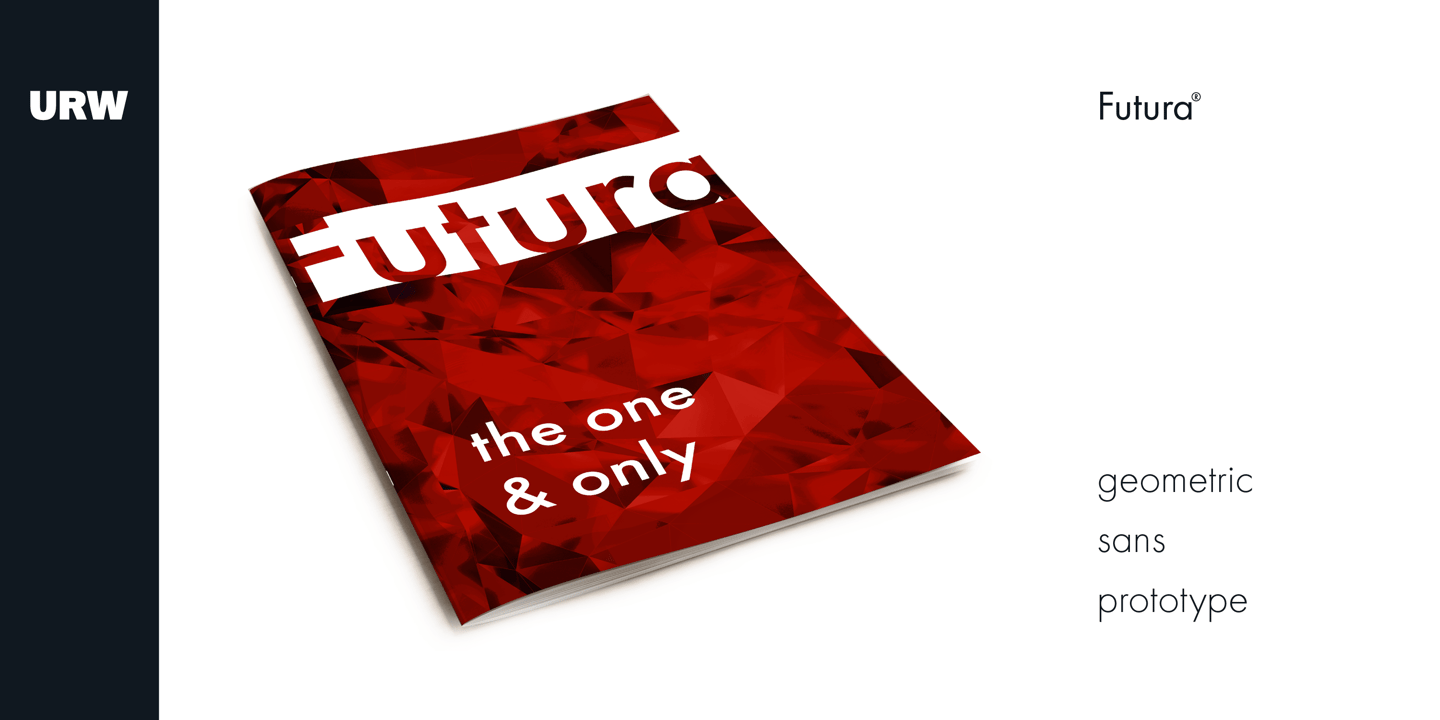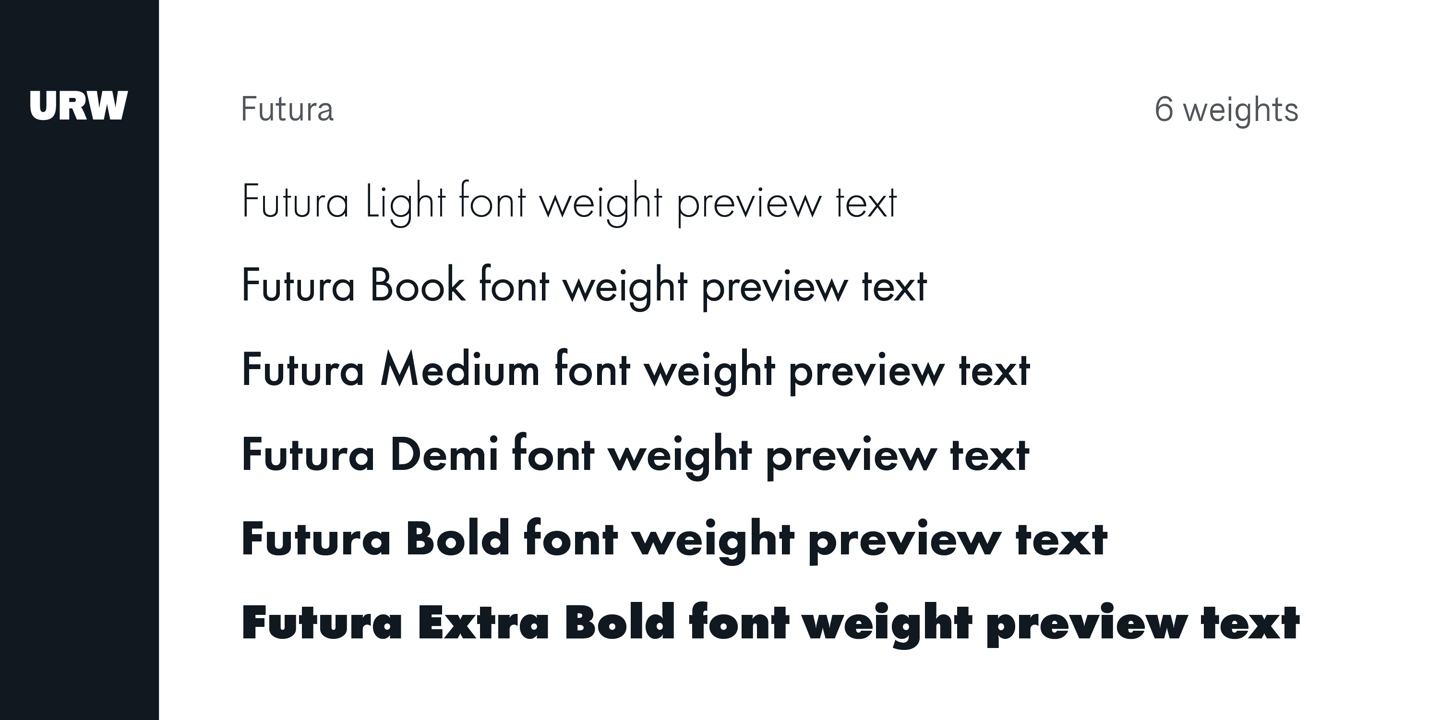
Futura Font Brands
Futura Font Brands - Designed in 1927 by german type designer paul renner, futura is a geometric sans serif based on geometric shapes that became representative. 59 rows designed in 1927 by german type designer paul renner, futura is a geometric sans serif based on geometric shapes that became.
Designed in 1927 by german type designer paul renner, futura is a geometric sans serif based on geometric shapes that became representative. 59 rows designed in 1927 by german type designer paul renner, futura is a geometric sans serif based on geometric shapes that became.
59 rows designed in 1927 by german type designer paul renner, futura is a geometric sans serif based on geometric shapes that became. Designed in 1927 by german type designer paul renner, futura is a geometric sans serif based on geometric shapes that became representative.
Futura Font Family by URW++ Font Bros
Designed in 1927 by german type designer paul renner, futura is a geometric sans serif based on geometric shapes that became representative. 59 rows designed in 1927 by german type designer paul renner, futura is a geometric sans serif based on geometric shapes that became.
Futura Poster Design for Typography Enthusiasts
Designed in 1927 by german type designer paul renner, futura is a geometric sans serif based on geometric shapes that became representative. 59 rows designed in 1927 by german type designer paul renner, futura is a geometric sans serif based on geometric shapes that became.
Futura type Font poster Poster fonts, Futura font, Typography poster
Designed in 1927 by german type designer paul renner, futura is a geometric sans serif based on geometric shapes that became representative. 59 rows designed in 1927 by german type designer paul renner, futura is a geometric sans serif based on geometric shapes that became.
59 rows designed in 1927 by german type designer paul renner, futura is a geometric sans serif based on geometric shapes that became. Designed in 1927 by german type designer paul renner, futura is a geometric sans serif based on geometric shapes that became representative.
Futura Font Family
Designed in 1927 by german type designer paul renner, futura is a geometric sans serif based on geometric shapes that became representative. 59 rows designed in 1927 by german type designer paul renner, futura is a geometric sans serif based on geometric shapes that became.
Futura Font Family by URW++ Font Bros
59 rows designed in 1927 by german type designer paul renner, futura is a geometric sans serif based on geometric shapes that became. Designed in 1927 by german type designer paul renner, futura is a geometric sans serif based on geometric shapes that became representative.
59 Rows Designed In 1927 By German Type Designer Paul Renner, Futura Is A Geometric Sans Serif Based On Geometric Shapes That Became.
Designed in 1927 by german type designer paul renner, futura is a geometric sans serif based on geometric shapes that became representative.